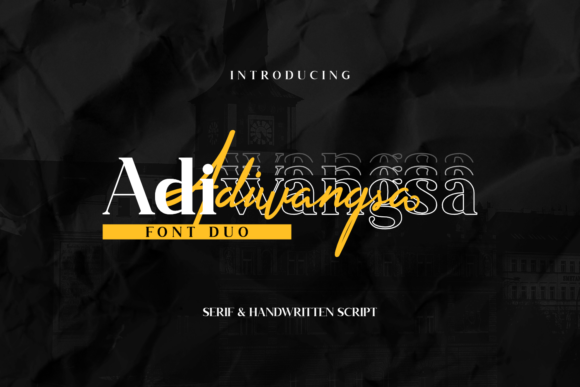
The Designer’s Dilemma: How Adiwangsa Font Became My Go-To
I still remember the frustration of working on a project, hours spent searching for the perfect font, only to end up with a design that felt flat and uninspired. It was as if the font was sucking the life out of my creative vision. My client wanted a poster that would grab attention, but I was stuck with a bland, generic font that just wouldn’t cut it.
That’s when I stumbled upon Adiwangsa, a stylish and unique duo font that changed the game for me. **It’s a font that will make your designs stand out**, whether it’s a poster, thank you card, quote, greeting card, logo, or business card. In this article, I’ll share my experience with Adiwangsa, its features, and how to make the most of it in your designs.
An Honest Review of Adiwangsa Font
What I Love About Adiwangsa ✨
- ✅ Unique and stylish design that adds a creative touch to any project
- ✅ Versatile and works well for various design applications, from posters to logos
- ✅ Easy to read and understand, even at smaller font sizes
- ✅ The duo font offers a range of possibilities with its two styles
- ⚠️ Some users may find the font a bit too ornate for certain projects
- ⚠️ Limited availability of certain characters or glyphs
The Backstory of Adiwangsa Font
Adiwangsa is a unique font designed by a talented type designer who drew inspiration from traditional Indonesian art. The font’s name, Adiwangsa, reflects its cultural heritage and means “excellent” or “superior” in Indonesian. The designer’s goal was to create a font that would be both stylish and legible, making it perfect for a wide range of design applications.
| What is Adiwangsa font? | Adiwangsa is a stylish and unique duo font designed for creative projects. |
| Is Adiwangsa font suitable for body text? | While Adiwangsa font is beautiful, it’s best used for headlines and titles. For body text, a clearer font may be more suitable. |